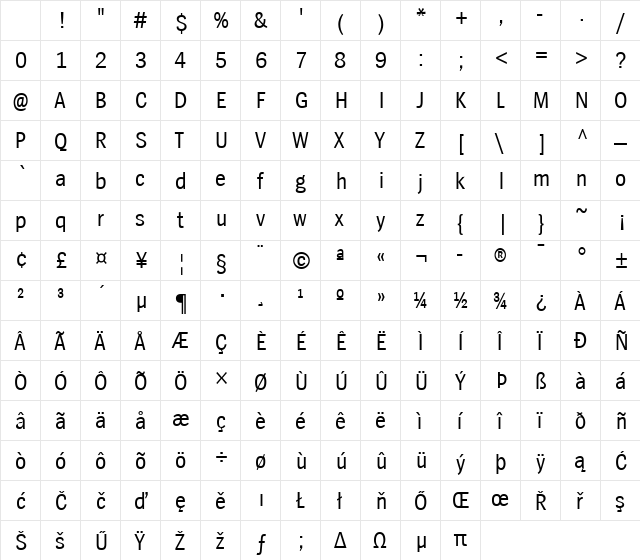
Complete SpiegelCd Regular glyph index. Displaying only characters natively supported by SpiegelCd Regular font.
SpiegelCd is a composed and adaptable typeface that performs quietly and consistently across a wide range of design contexts.